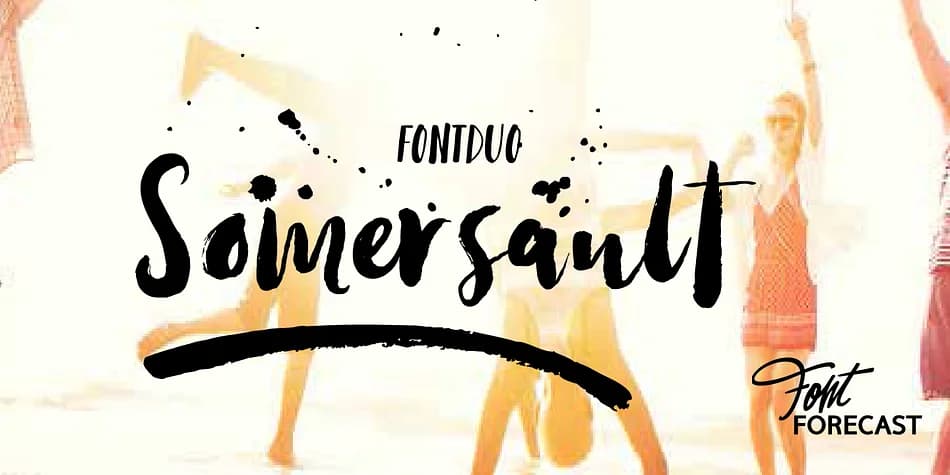
Picture a vintage wedding invitation suite where the lettering feels like it was sketched by hand in a studio. That's Somersault by Fontforecast, a brush script that captures the joy of imperfect, sketched letterforms without any of the design complications. The rough edges and painterly quality give it genuine character. It's not a polished, formal script, but something that breathes life into whatever you're making.
Hand-lettered greeting cards, bohemian event posters, children's book covers, and artisanal product packaging all come alive with this font. You get alternate versions for each character built in, so you can swap between them to keep the design feeling natural and prevent the repetitive look of repeated letters. Ligatures, swashes, and plenty of extra touches like decorative strokes, small hearts, and splatters let you add personality without needing any special software. Everything's accessible through PUA encoding, so Mac's Fontbook or Windows Character Map gets you instant access to every variation.
Pair it with Somersault Tall, its all-caps companion, and you have flexibility whether you need lowercase storytelling or uppercase emphasis. With this much versatility and personality already built in, the font commands attention on any project where hand-drawn charm matters. You'll find it on Creative Fabrica whenever you're ready to bring that authentic, sketched-by-hand feeling to life.
Somersault Font is a script font that shines as a display or heading face. Pair it with a clean sans-serif or serif font for body text β the contrast creates a clear hierarchy while the two styles stay balanced and easy to read.